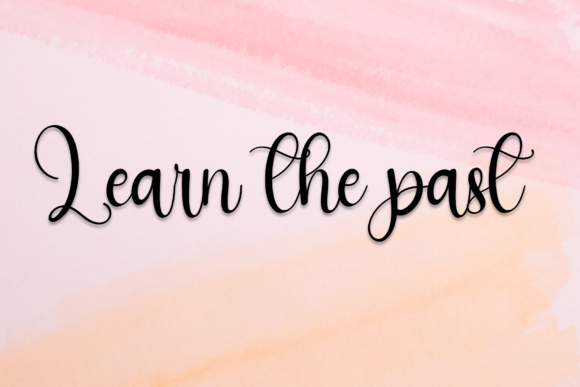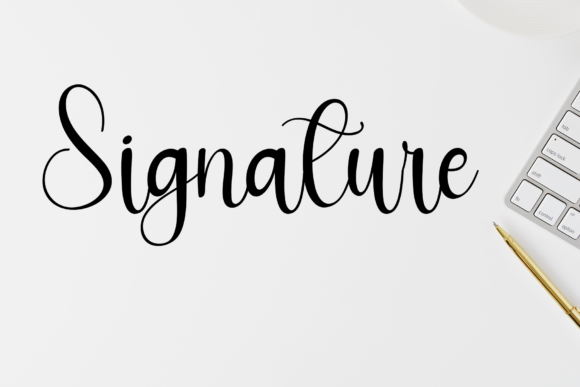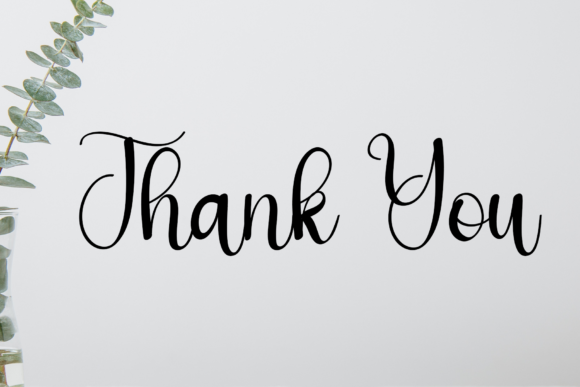
About Bunny Font
Introducing a sweet, romantic, and beautiful script font that effortlessly combines elegance with charm. Every letter features beautiful curves, creating a gentle and delightful aesthetic that will enhance a variety of design ideas. This font promises to add a joyful and romantic touch to each of your projects, turning them into visual expressions of love and beauty.
Imagine this font gracing wedding invitations, where its romantic curves set the tone for a celebration of love. Picture it adding a sweet touch to greeting cards, posters, or any project that aims to convey warmth and affection. This script font becomes a versatile tool for infusing your designs with a sense of joy and romance.
The beautiful curves in each letter contribute to the font’s overall aesthetic, creating a harmonious flow that captures the eye. Whether it’s used in branding, signage, social media graphics, or any other creative endeavor, this font becomes a gentle yet impactful element in your design toolkit.
Embrace the sweet and romantic essence of this script font, letting it transform your projects into visual delights. Its versatility ensures that it harmonizes with various design ideas, becoming the perfect choice when you want to add a touch of love and beauty to your creations. Let this font be the gentle brushstroke that paints your designs with a palette of romance and joy.